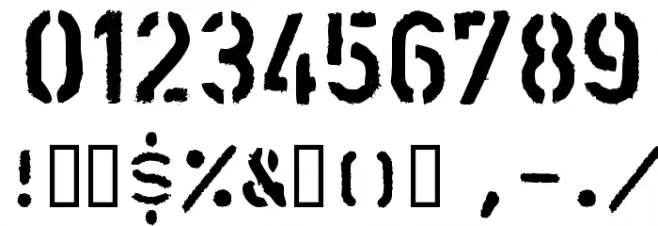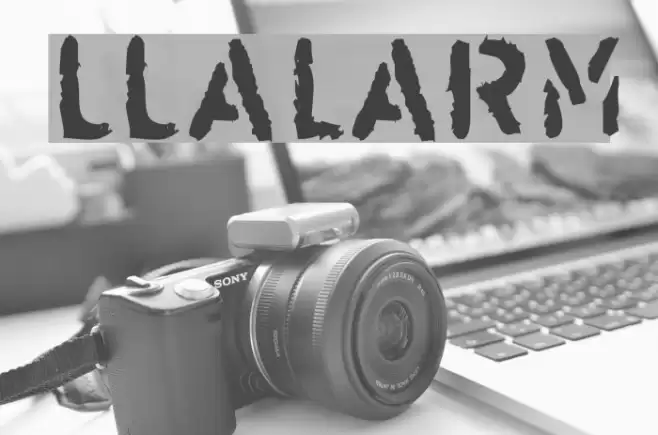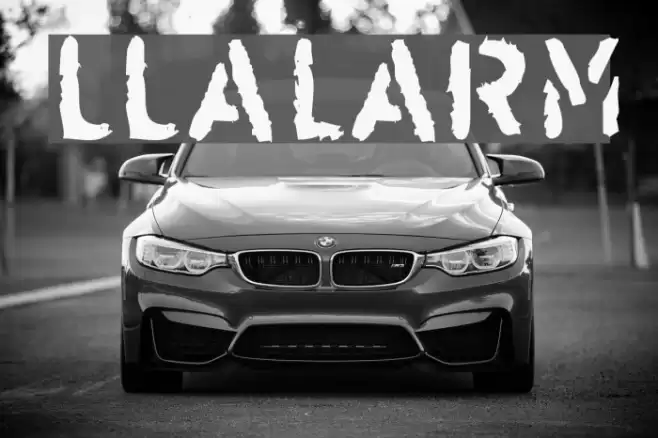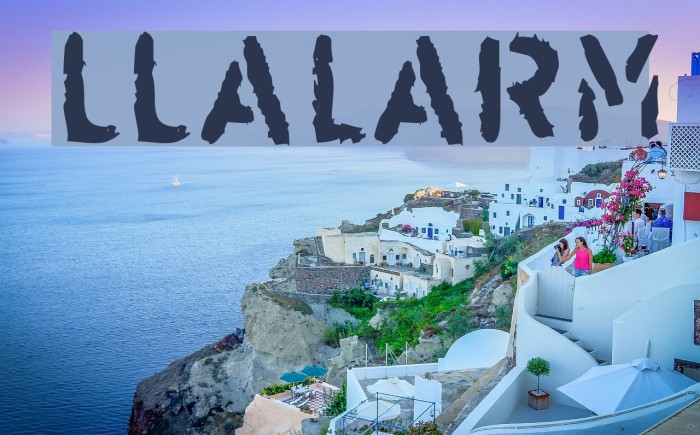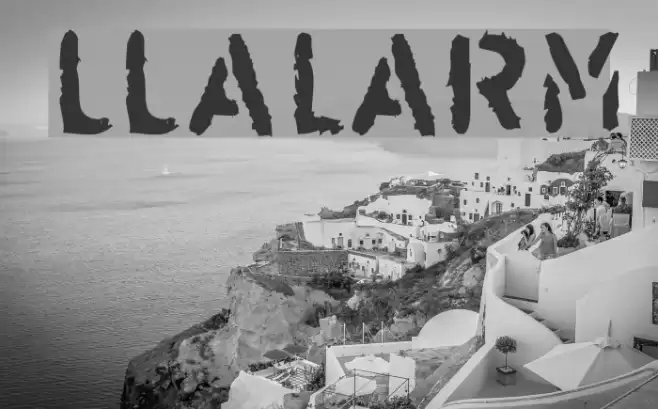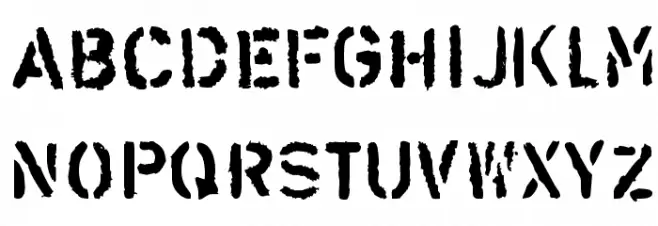
LLAlarm Font
LLAlarm Description
This font features a bold, distressed style with a stencil-like appearance. The characters are rugged and uneven, giving a sense of urgency and rawness. The uppercase and lowercase letters maintain a consistent design, with jagged edges and a rough texture that suggests a worn or weathered look. The numbers and special characters follow the same aesthetic, making the font suitable for designs that require a gritty, industrial feel. The overall impression is one of strength and impact, ideal for grabbing attention.
| Overall Style | Industrial, Gritty, Distressed |
| Proposed Projects | Ideal for posters, album covers, streetwear branding, or any project needing a gritty, industrial vibe. |